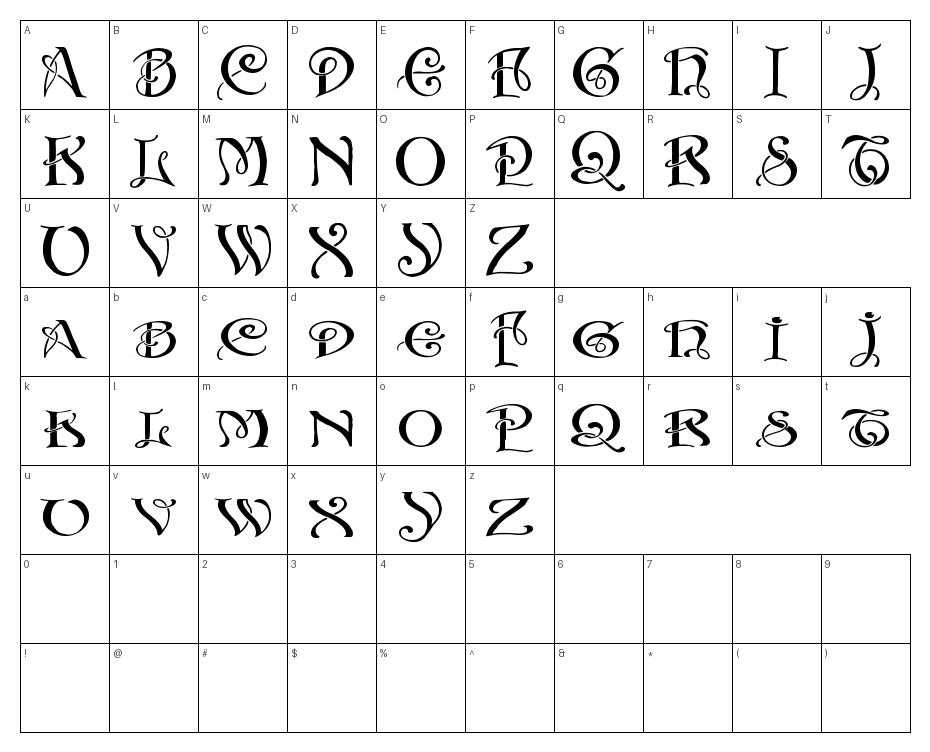
I bought a CD with free Initial fonts. These where in TIF-images. I converted one of these to TTF and added a lower-case version and a few extra letters that I needed.
Schriftname: Initials With Curls
Name des Designers: dnor